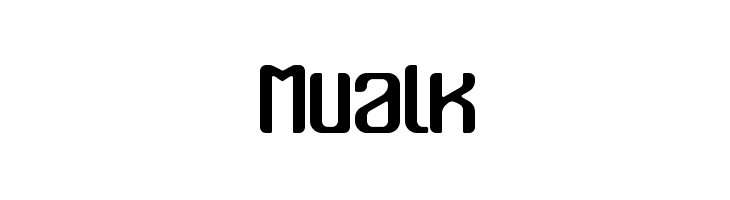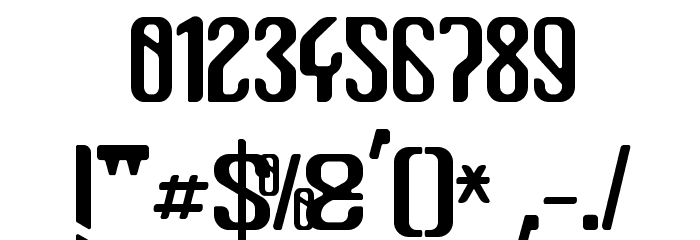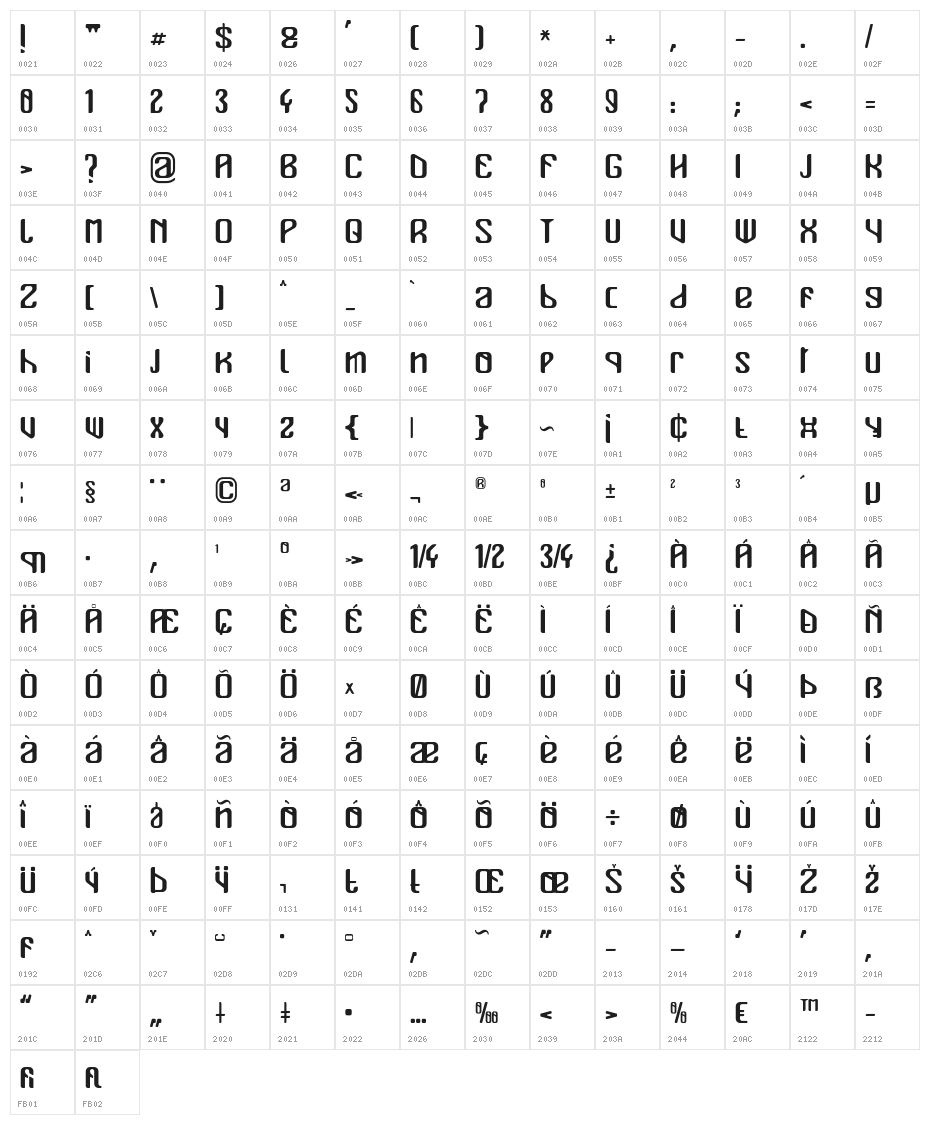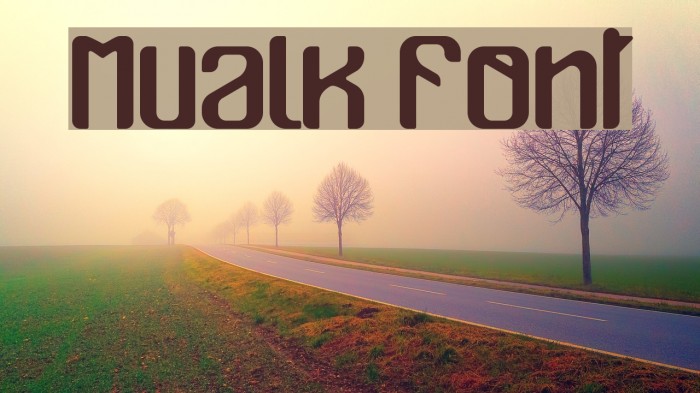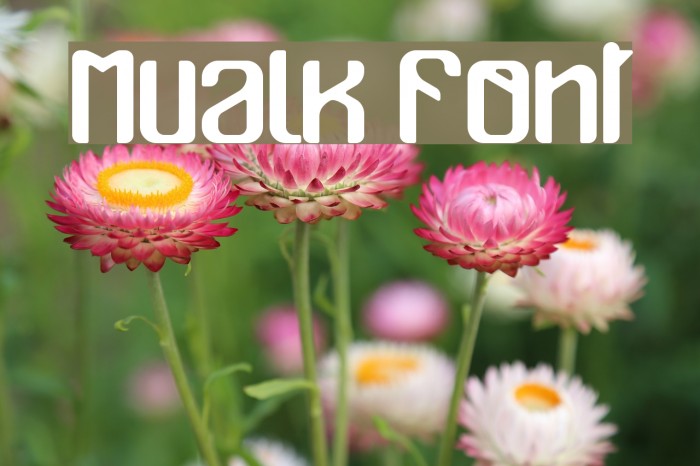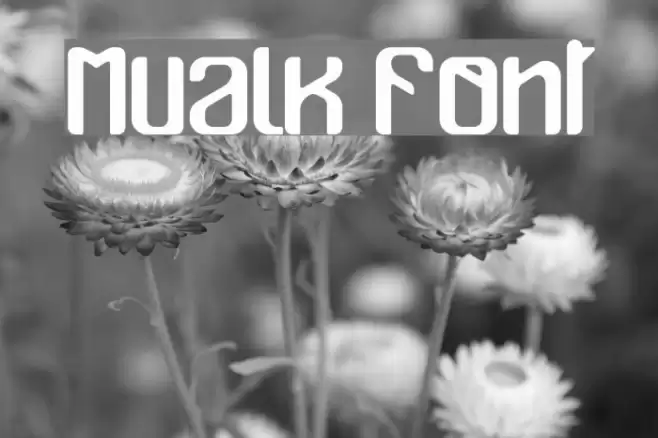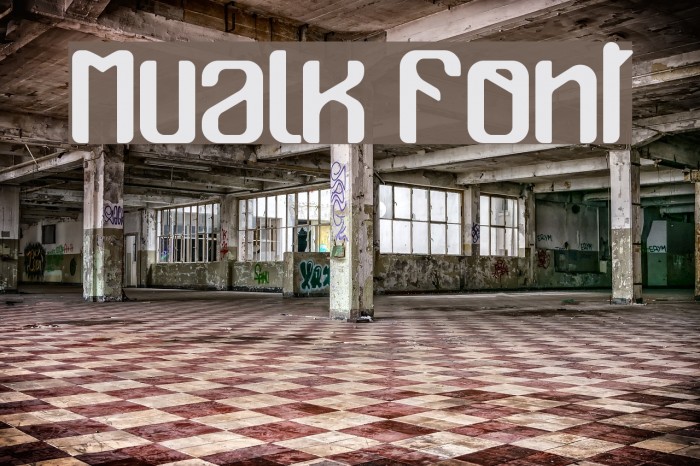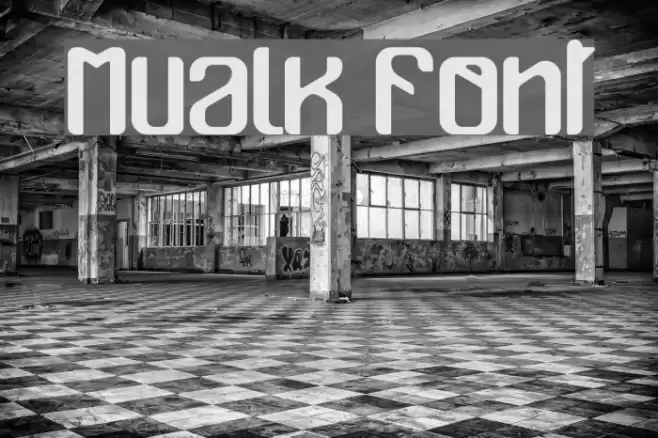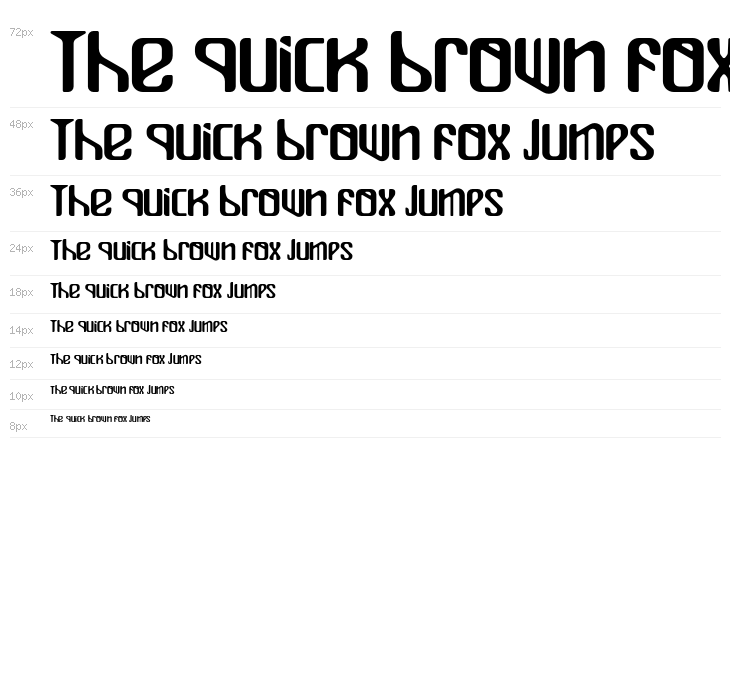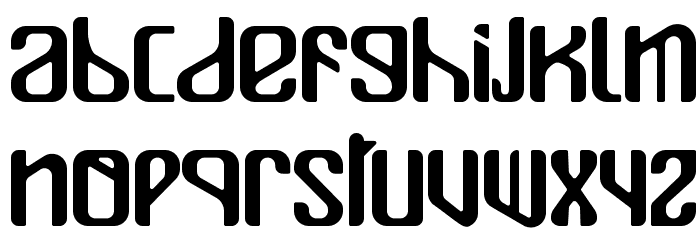
Mualk Font
Mualk Description
This font features a bold and modern design with rounded edges and a geometric structure. The uppercase and lowercase letters maintain a consistent height, providing a uniform appearance. The numerals and special characters are designed to complement the alphabet with similar rounded and bold characteristics. The overall style is clean and contemporary, making it suitable for a variety of design applications. The font's unique style is eye-catching and can add a modern touch to any project.